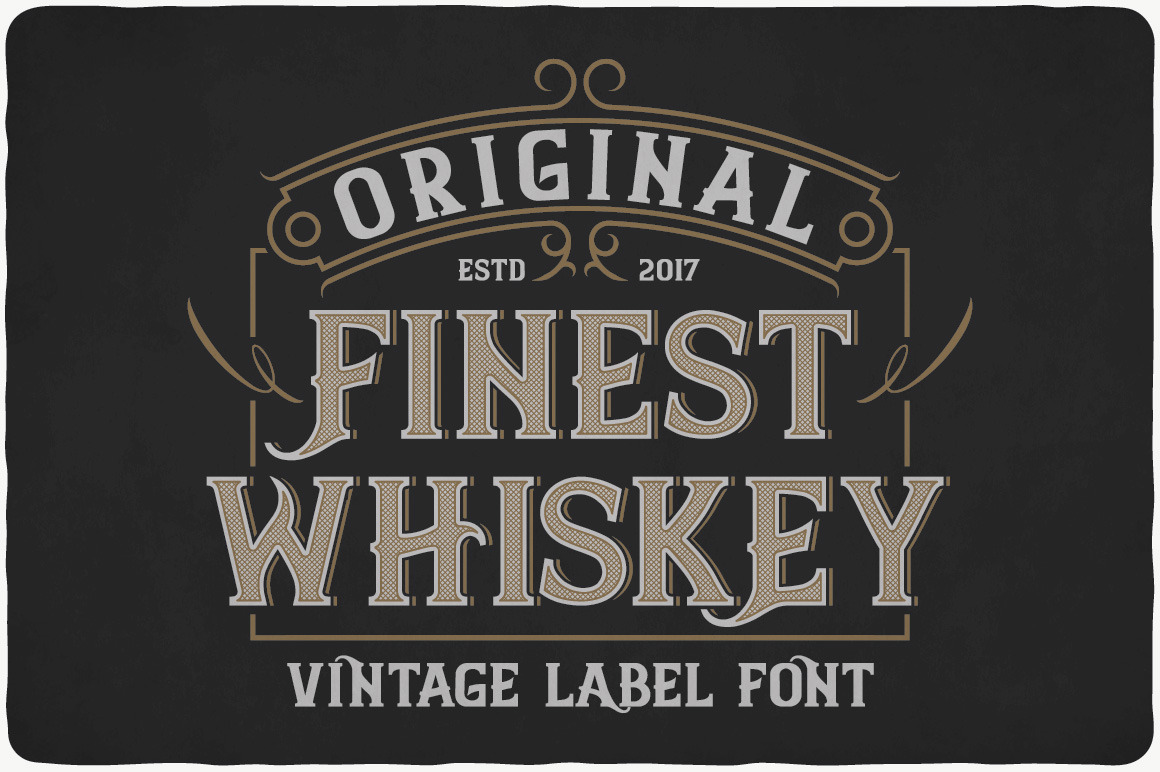
Finest Whiskey Font
Introducing a vintage look label typeface named "Finest Whiskey". This typeface contains layers - texture and shadow, for sample look at 4th preview. Plus aged (distressed) version. Typeface is good viewed on any yours design.